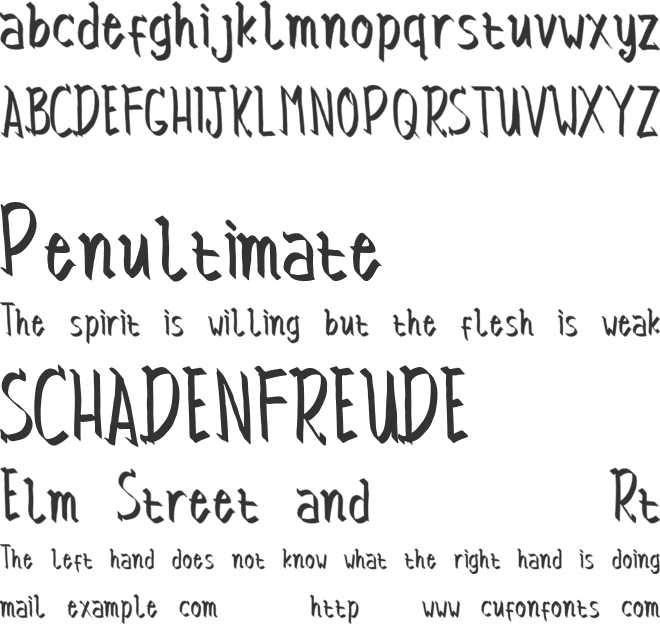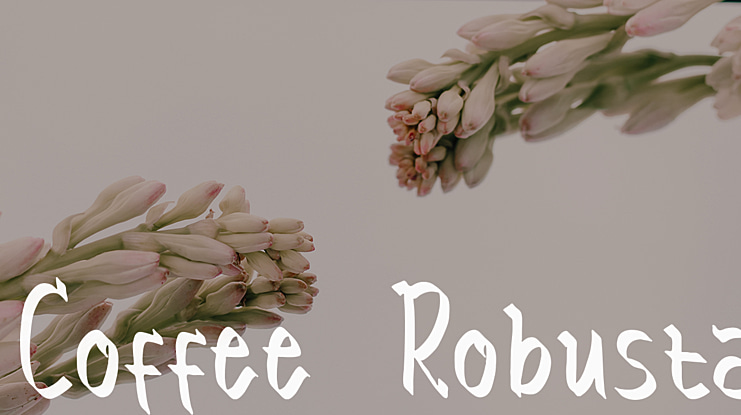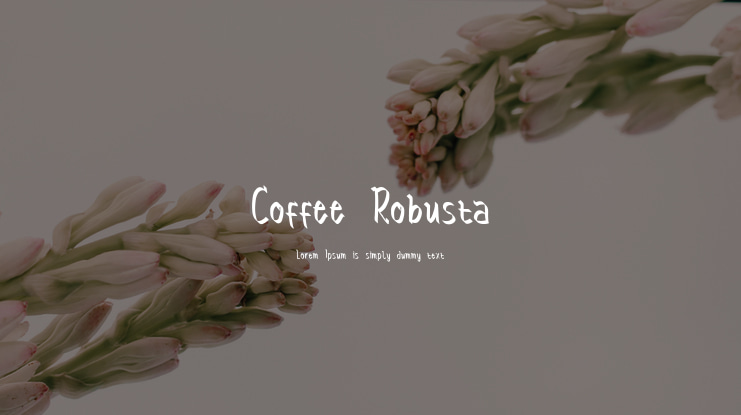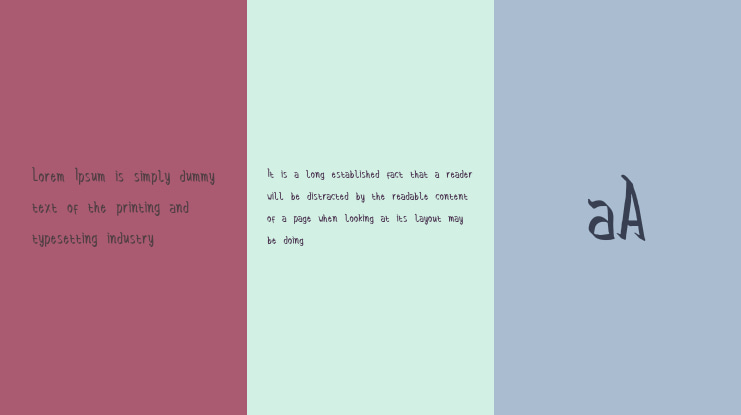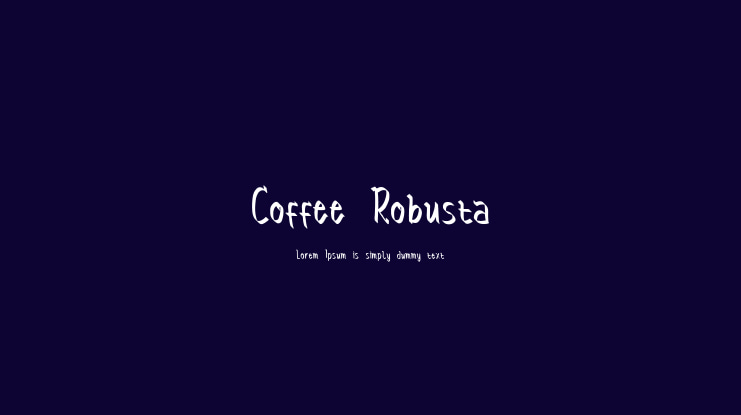
Coffee Robusta Font
Coffee Robusta is a fun and joyful display font. It can be used for various purposes such as logos, wedding invitations, headings, t-shirts, letterhead, signage, labels, news, posters, badges and so much more.